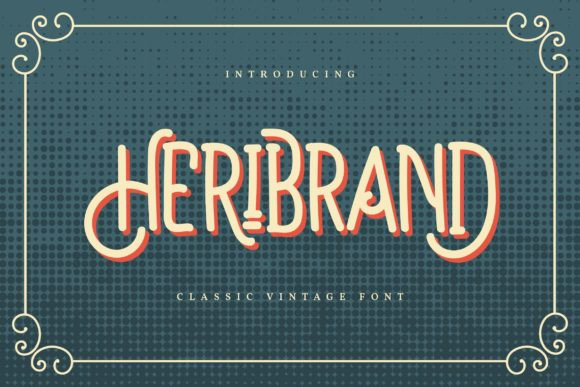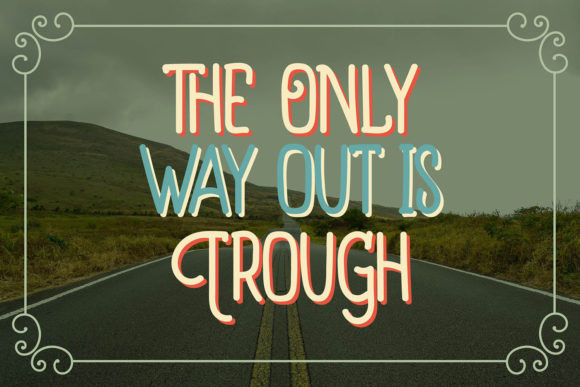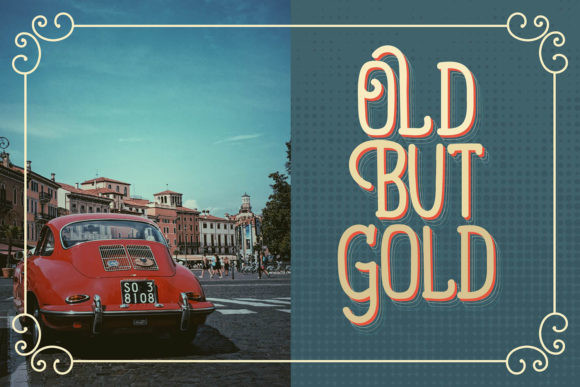
Heribrand Font
Heribrand is a cute and quirky display font. It will add an incredibly joyful touch to your designs. Add this beautiful display font to each of your creative ideas and notice how it makes them stand out!